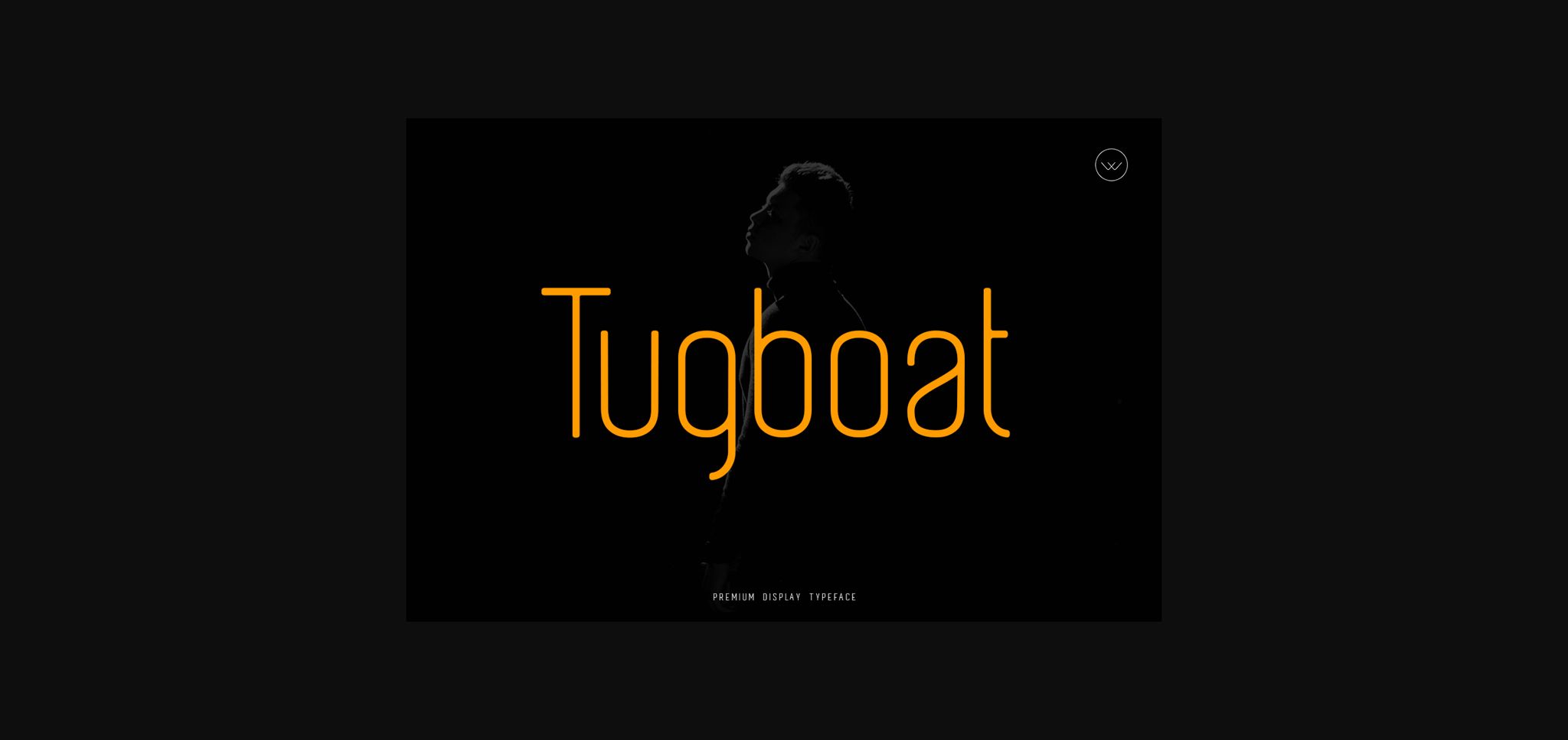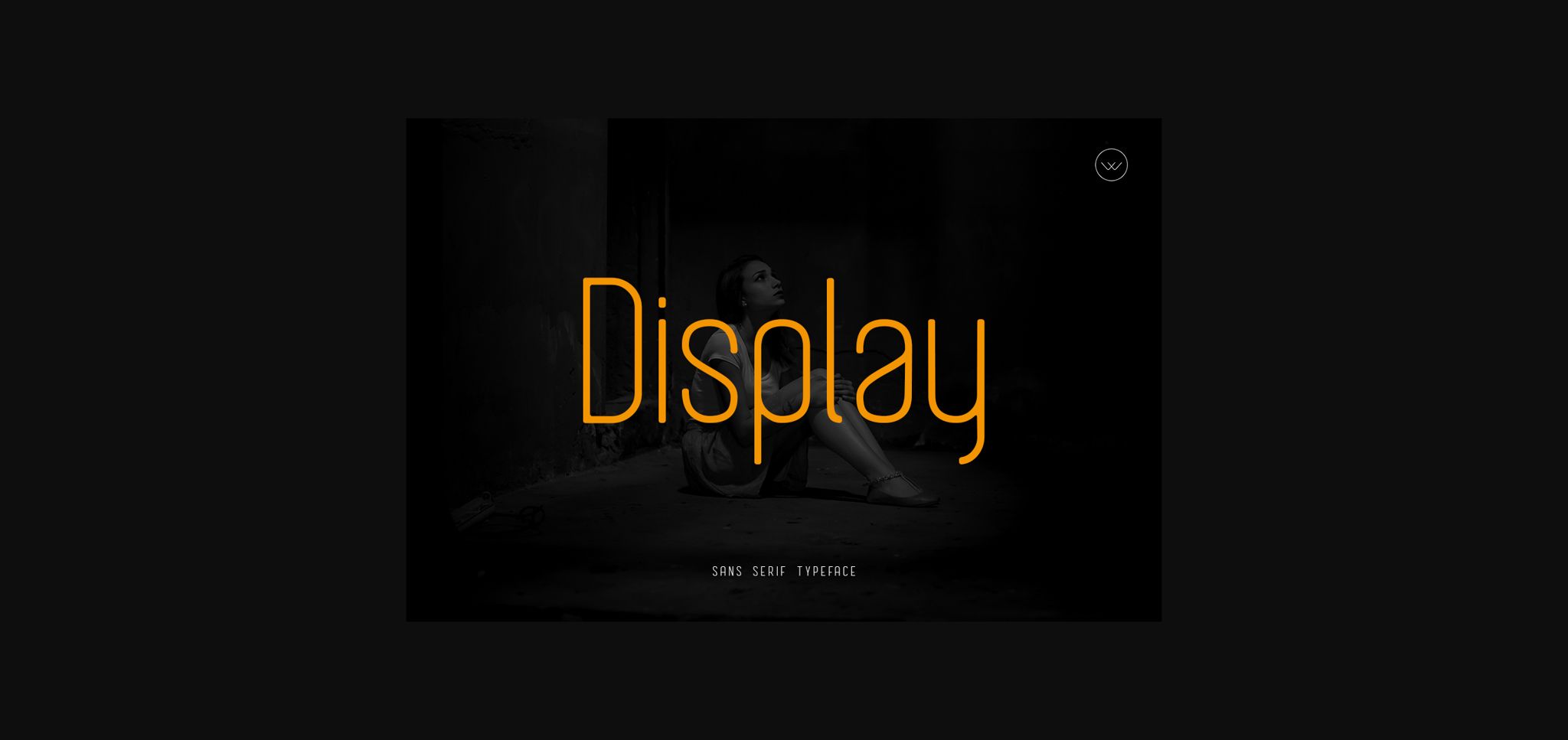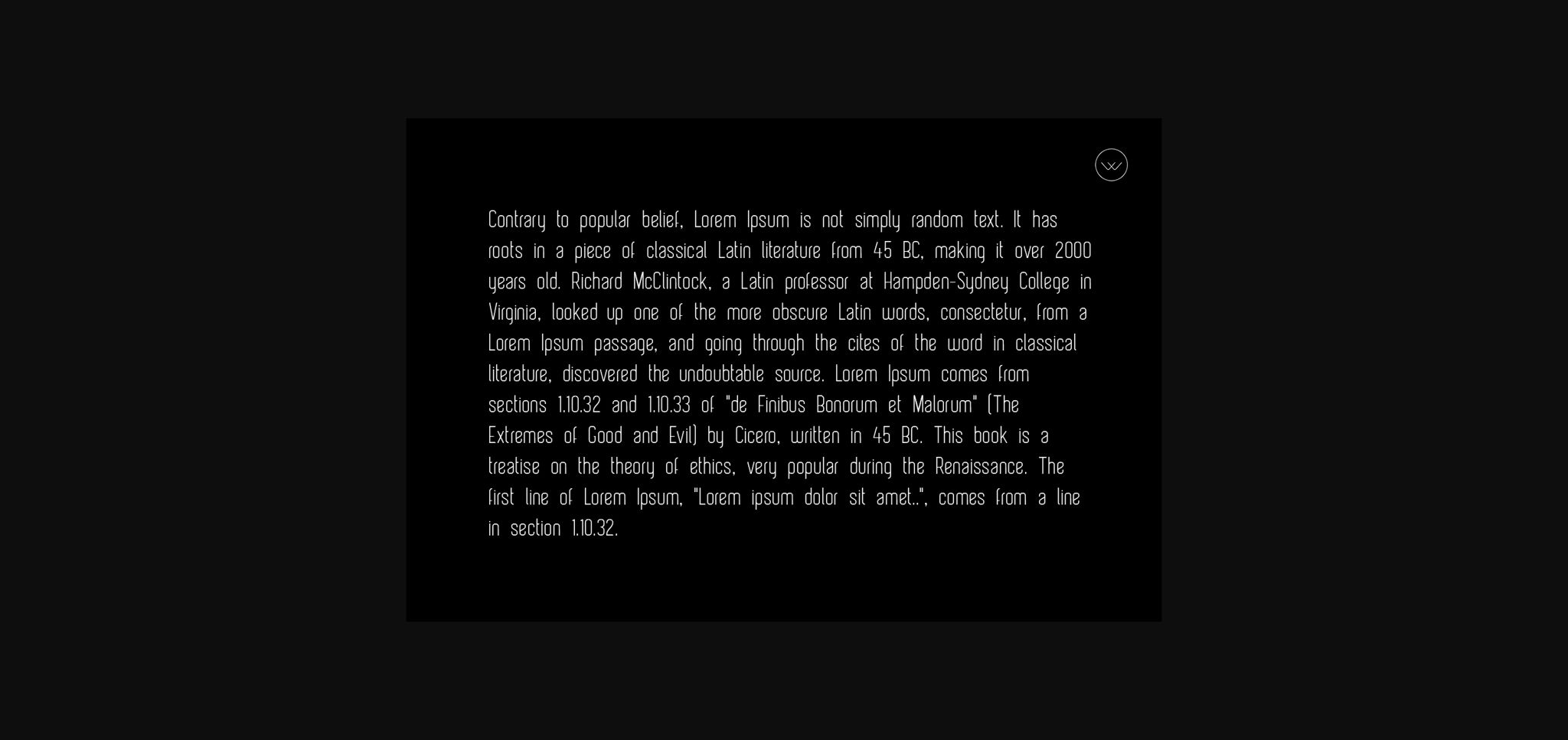
HomeSans Serif FontsTugboat Font Sans Serif Fonts Tugboat Font FacebookXPinterestWhatsApp 1 of 5 ... Tugboat Font Poster 2... Tugboat Font Poster 3... Tugboat Font Poster 4... Tugboat Font Poster 5... About Tugboat Font Tugboat is a modern and thin lettered sans serif font. It is suitable for any branding that requires a minimalist approach, product packaging, invitation, quote, t-shirt, label, poster, logo that you wish to develop. DOWNLOAD NOW People also explored Happy Family Time Font The Succulent Trio Font Magical Sains Font Split Pumpkin Monogram Font Stickers Breezing Font Dileto Font Emily Font Wasteland Font 327 0 TagsTugboatTugboat Font Previous articleGrigory FontNext articleGoat Font LEAVE A REPLY Cancel reply Comment: Please enter your comment! Name:* Please enter your name here Email:* You have entered an incorrect email address! Please enter your email address here Website: Save my name, email, and website in this browser for the next time I comment. Personal Use Free Jellia Personal Use Free Read more about this font Waverly Date Personal Use Free Read more about this font Hearted Personal Use Free Read more about this font Open Heart Personal Use Free Read more about this font BLOG Free Fonts Risk: Why Free Fonts Can Be Dangerous for Designers Free Fonts Risk: Why Free Fonts Can Be Dangerous for Designers Using free fonts is a common practice in web and graphic design. However, the... How to Cut Any Font on Cricut: Convert a Font to SVG (Free) 5 Fonts That Will Dominate Design Trends in 2026 Modern Sans-Serif Fonts That Brands Love in 2025